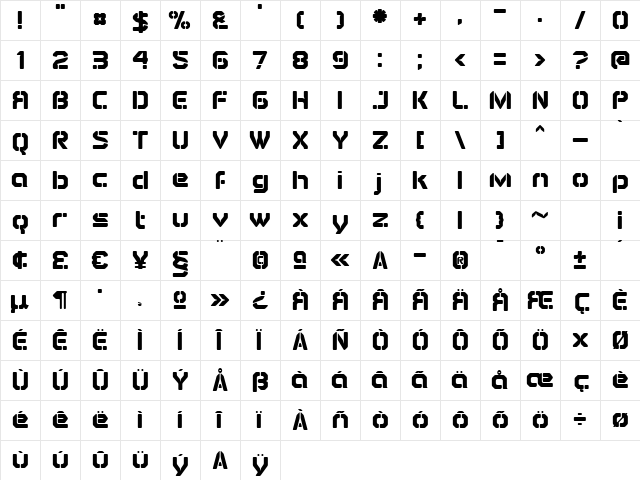
Airbrake Rounded
Design Context for Airbrake Typeface
Airbrake uses gentle rounded endings to create a warm, inviting typographic personality — less corporate than geometric sans, more refined than playful display fonts.
Well-suited to UI design, mobile interfaces, and any brand that wants approachability without sacrificing clarity.
Font Pairing: Pairs well with a rounded or humanist sans for body copy, maintaining the friendly tone without relying on Airbrake to carry extended reading.
Pro Tip: Use Airbrake for UI elements, app interfaces, and anywhere a friendly, approachable tone needs to be maintained without sacrificing clarity.